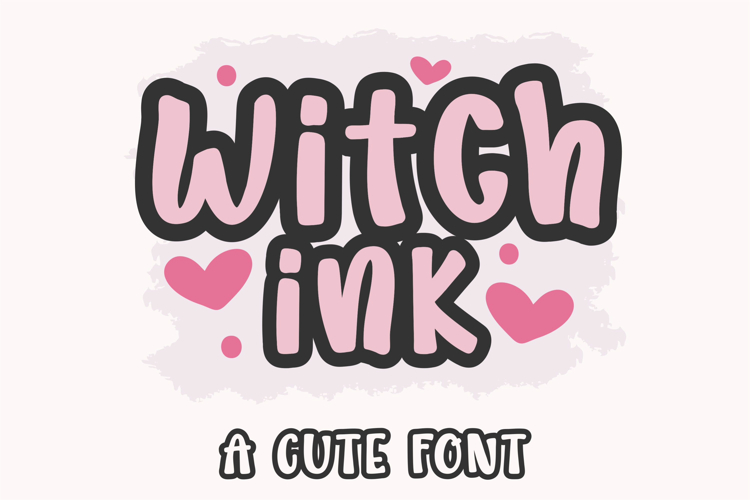
Witch Ink is a bubbly, hand-lettered font full of personality! With bold outlines, sweet curves, and playful vibes, this cute display font is ideal for crafting adorable quotes, kids’ apparel, birthday invites, digital planners, SVG designs, classroom posters, and more. Its friendly, chunky style makes it super easy to read and cut, perfect for Cricut, Silhouette, and Glowforge projects. Whether you're designing for a teacher, a toddler, Witch Ink adds joyful charm to every word. Comes in OTF and TTF file formats, fully compatible with most design software. Let your words sparkle with fun - grab Witch Ink today and start creating magic!